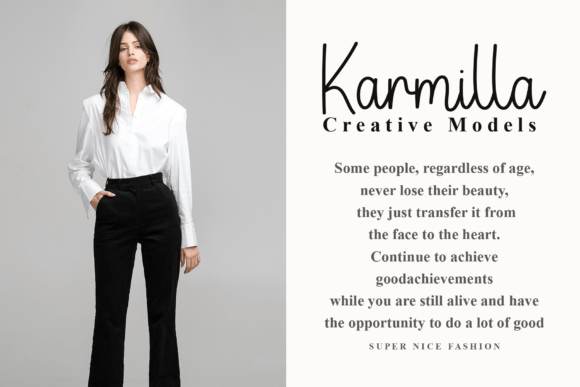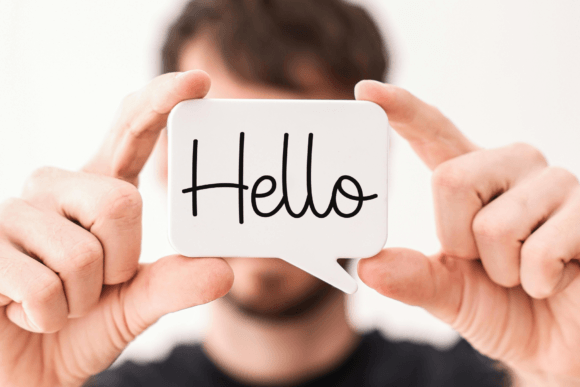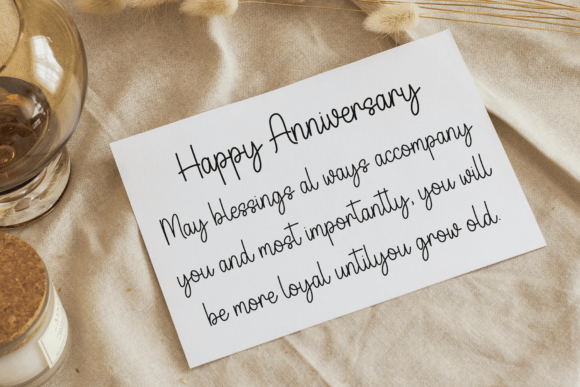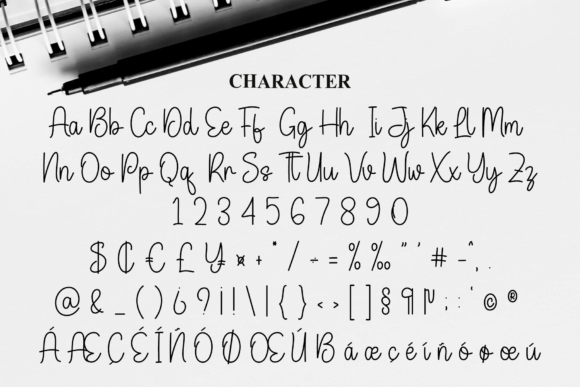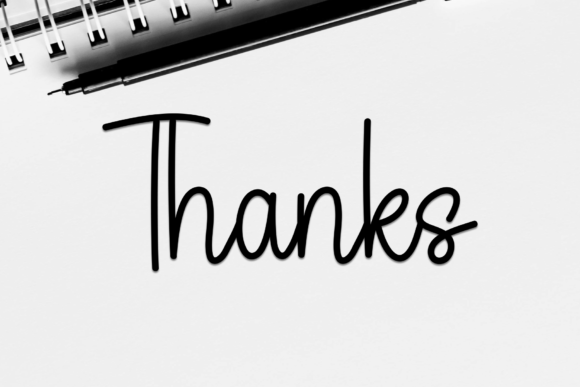
The Beauty of Calligraphy Fonts: Elevating Design with Elegance and Sophistication
Calligraphy is a charming handwritten font filled with a sense of heartfelt perfection. Its smooth strokes and organic lines evoke a relaxed atmosphere, making it perfect for a variety of design projects. Whether used for branding, invitations, or social media graphics, calligraphy fonts have the power to elevate designs with elegance and sophistication.
What is Calligraphy Font?
Calligraphy font is a type of font that mimics the art of calligraphy, a traditional style of handwriting that emphasizes beautiful handwriting with flowing lines and decorative letterforms. Calligraphy fonts are designed to replicate the look and feel of handwritten calligraphy, with varying line widths, fluid strokes, and intricate details.
Characteristics of Calligraphy Fonts
Calligraphy fonts are known for their distinctive characteristics, which include:
• Smooth strokes: Calligraphy fonts feature smooth, flowing strokes that give them a natural and organic look.
• Organic lines: Calligraphy fonts have irregular lines and subtle variations in line width, which add to their handmade feel.
• Decorative letterforms: Calligraphy fonts often feature decorative letterforms, such as flourishes and swashes, which add elegance and sophistication.
• Emotional connection: Calligraphy fonts evoke an emotional connection with the viewer, as they convey a sense of warmth, personality, and human touch.
Uses of Calligraphy Fonts
Calligraphy fonts are versatile and can be used in a variety of design projects, including:
• Branding: Calligraphy fonts can add a touch of elegance and sophistication to a brand’s identity, making them perfect for logos, business cards, and packaging.
• Invitations: Calligraphy fonts are ideal for formal and informal invitations, such as wedding invitations, birthday invitations, and event invitations.
• Social media graphics: Calligraphy fonts can add a creative and artistic touch to social media graphics, such as quotes, posters, and flyers.
• Stationery: Calligraphy fonts can be used to create beautiful stationery, such as letterheads, journals, and planners.
Tips for Using Calligraphy Fonts
Here are some tips for using calligraphy fonts effectively in your designs:
• Choose the right font: With so many calligraphy fonts available, choose one that fits your design style and project requirements.
• Use it sparingly: Calligraphy fonts can be overwhelming if overused. Use them sparingly to add emphasis and create visual interest.
• Pair it with simple fonts: Pair calligraphy fonts with simple fonts to create contrast and make your design more readable.
• Experiment with colors: Calligraphy fonts look great in a variety of colors. Experiment with different colors to find the one that works best for your design.
Popular Calligraphy Fonts
Here are some popular calligraphy fonts that you can use in your designs:
• Pacifico: A beautiful, modern calligraphy font with a relaxed and elegant feel.
• Great Vibes: A stylish calligraphy font with a fun and energetic vibe.
• Lobster: A classic calligraphy font with a sophisticated and elegant feel.
• Carolyna Pro: A beautiful, handwritten calligraphy font with a warm and inviting feel.
Calligraphy fonts are a great way to add elegance, sophistication, and personality to your designs. With their smooth strokes, organic lines, and decorative letterforms, calligraphy fonts can elevate your designs and make them more engaging and memorable. Whether you’re a designer, crafters, or DIY enthusiast, calligraphy fonts are a great tool to have in your design arsenal.